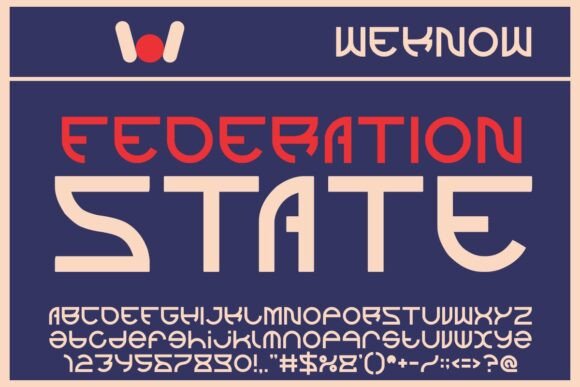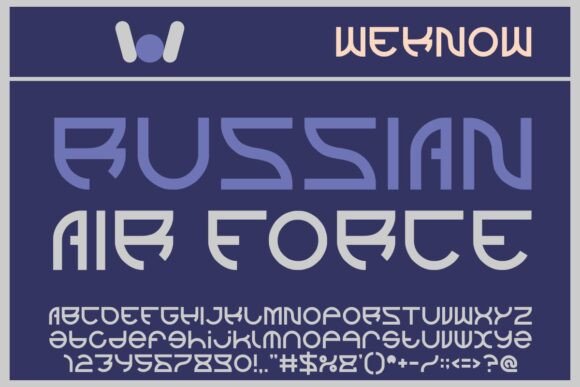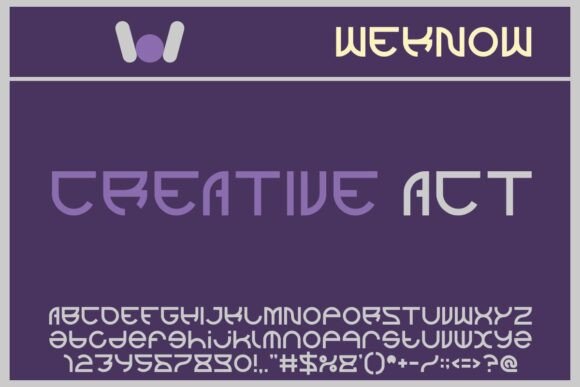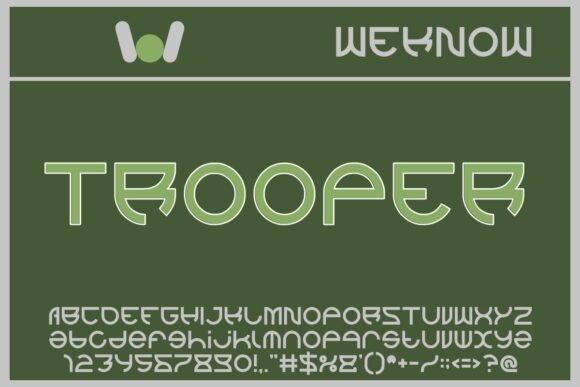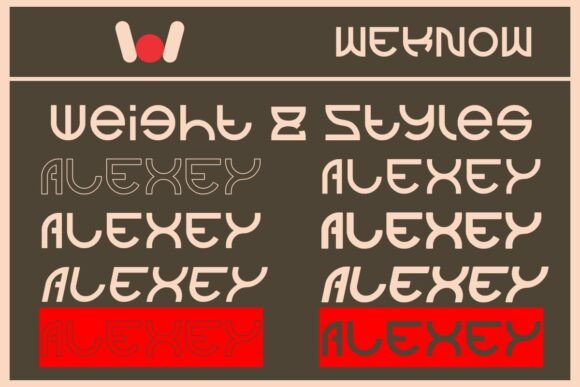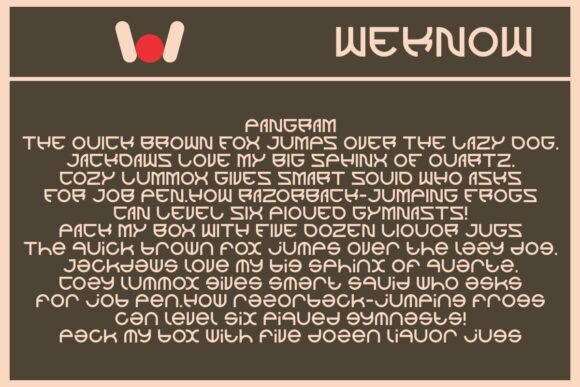
The Perfect Blend of Fun and Sophistication: Alexey Font
As designers, we’ve all been there – staring at a blank page, trying to conjure up the perfect font to match our creative vision. It’s that moment when the right font can make all the difference, elevating our designs from good to great. And that’s exactly what Alexey Font is designed to do – bring a touch of fun and sophistication to your next project.
Alexey Font is a decorative display font that’s perfect for adding a pop of personality to your designs. Whether you’re working on a bold campaign or a delicate illustration, this font is sure to impress. Its versatility makes it a valuable asset for designers of all levels, allowing you to experiment with different styles and designs without compromising on quality.
Alexey Font Key Features
- Font Family: Alexey Font is a sans-serif font family designed for digital use.
- Size: The font family includes 6 weights (Thin, Light, Regular, Medium, Bold, Black) to cater to different design requirements.
- Unique Characteristics: Alexey Font features a clean, modern design with subtle rounded edges, making it suitable for corporate, tech, and digital applications.
Review: Alexey Font
I recently had the chance to work with Alexey Font, and I’m excited to share my honest thoughts.
First, let me say that Alexey Font is a beautifully crafted font. The designer has put a lot of thought into the details, from the elegant curves to the precise letterforms.
- It’s incredibly versatile, making it perfect for a wide range of projects, from body text to headings.
- The font is highly legible, even at small sizes, making it a great choice for digital projects.
- The designer has included a range of weights and styles, giving you plenty of options to choose from.
While Alexey Font is an excellent choice for many projects, there are a few limitations to keep in mind:
- The font may not be the best choice for projects that require a lot of bold or italic text, as the designer has opted for a more subtle approach.
- Some users may find the font’s curves a bit too ornate, which can make it harder to read at very small sizes.
Overall, I’m really impressed with Alexey Font. It’s a beautiful, versatile font that’s perfect for a wide range of projects. With a few minor limitations in mind, I’d highly recommend it to anyone looking for a high-quality font.
For optimal results, use Alexey Font in titles and headings to add a touch of elegance and sophistication. It’s also great for creating a modern and minimalist design. Experiment with different font sizes and colors to create visual interest.